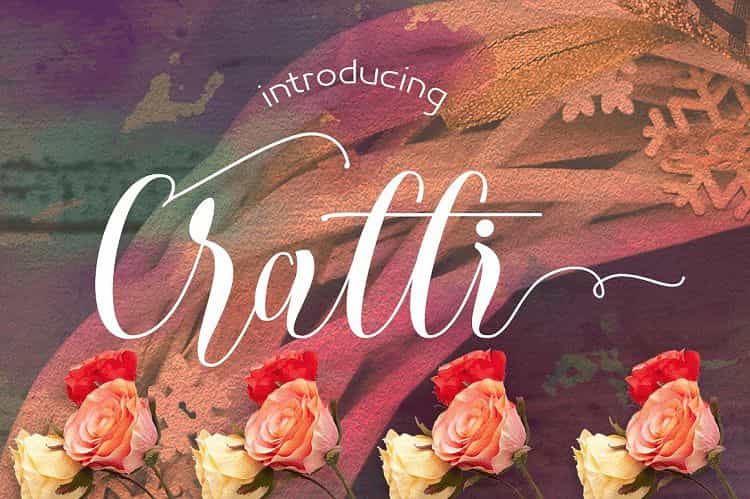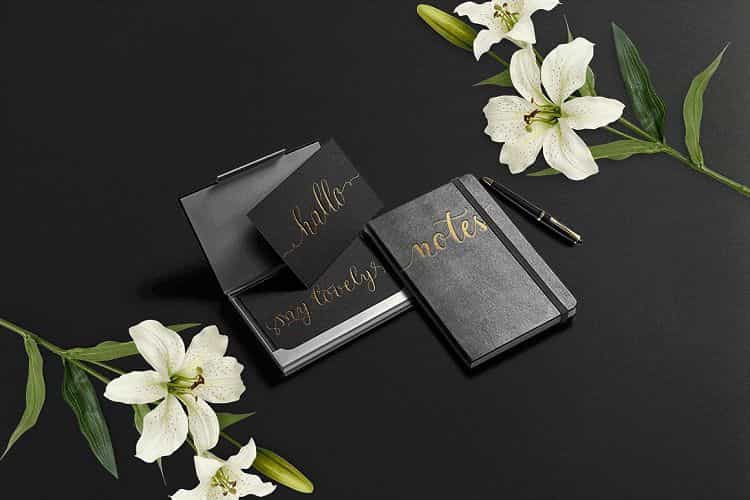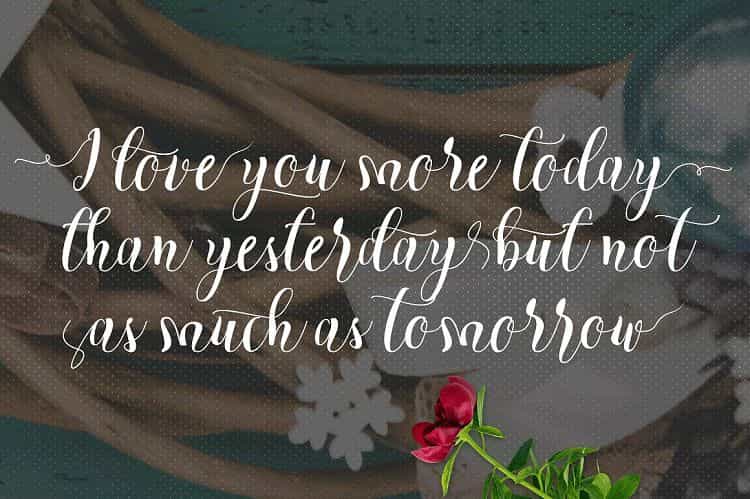
Introducing Cratti Font. Cretti is a contemporary calligraphy font, its letters seem to be dancing along the baseline and are very elegant. With almost 440 glyphs. Opentype features like the stylistic alternates, ligatures and multiple language support are also part of it.